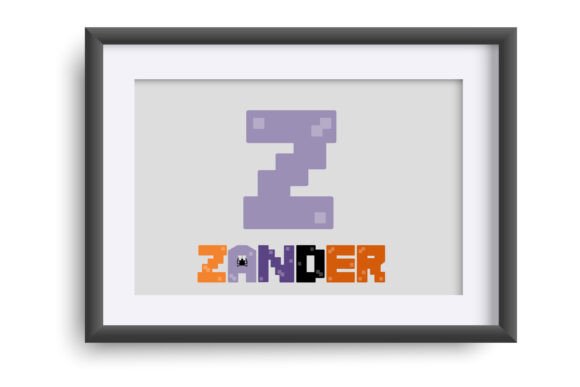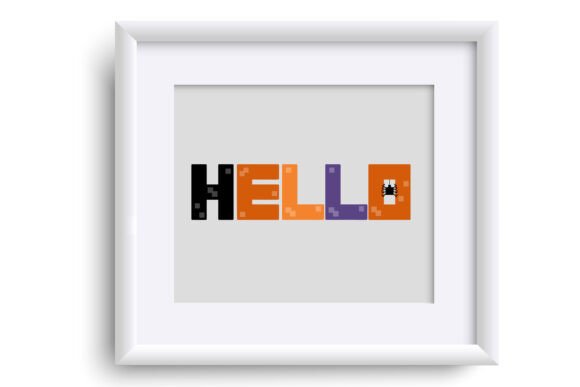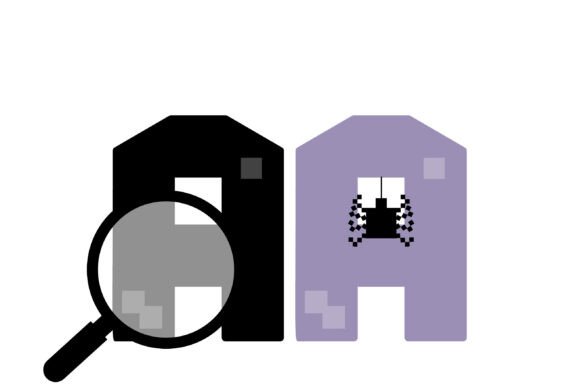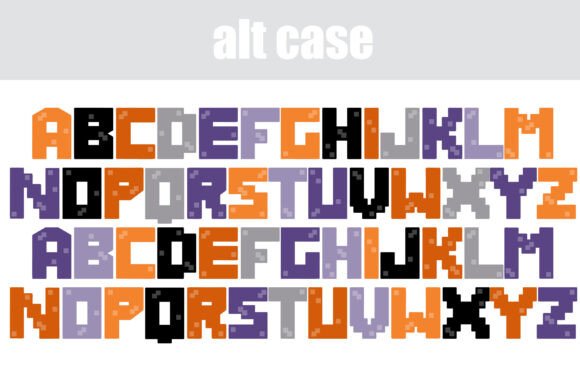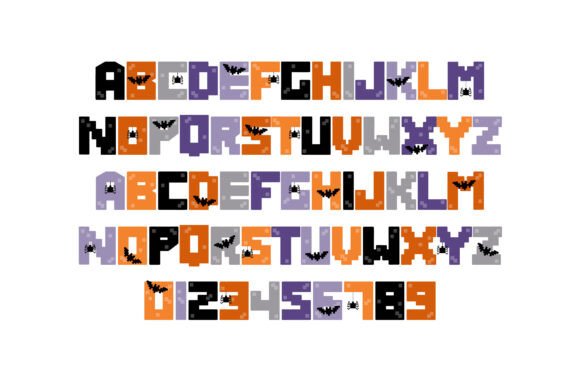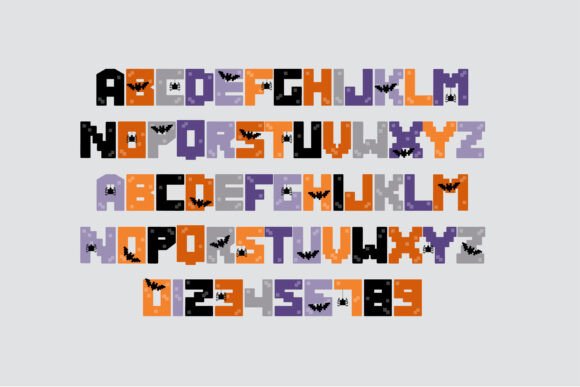
Introduction to Pixelcraft Poltergeist Font
This full-color font features a pixelated font in a Halloween color palette with bats and spiders.
There is an alt version you can access through your systemโs character map that contains additional colors of all the letters This font works best for titles, displays, posters and more.